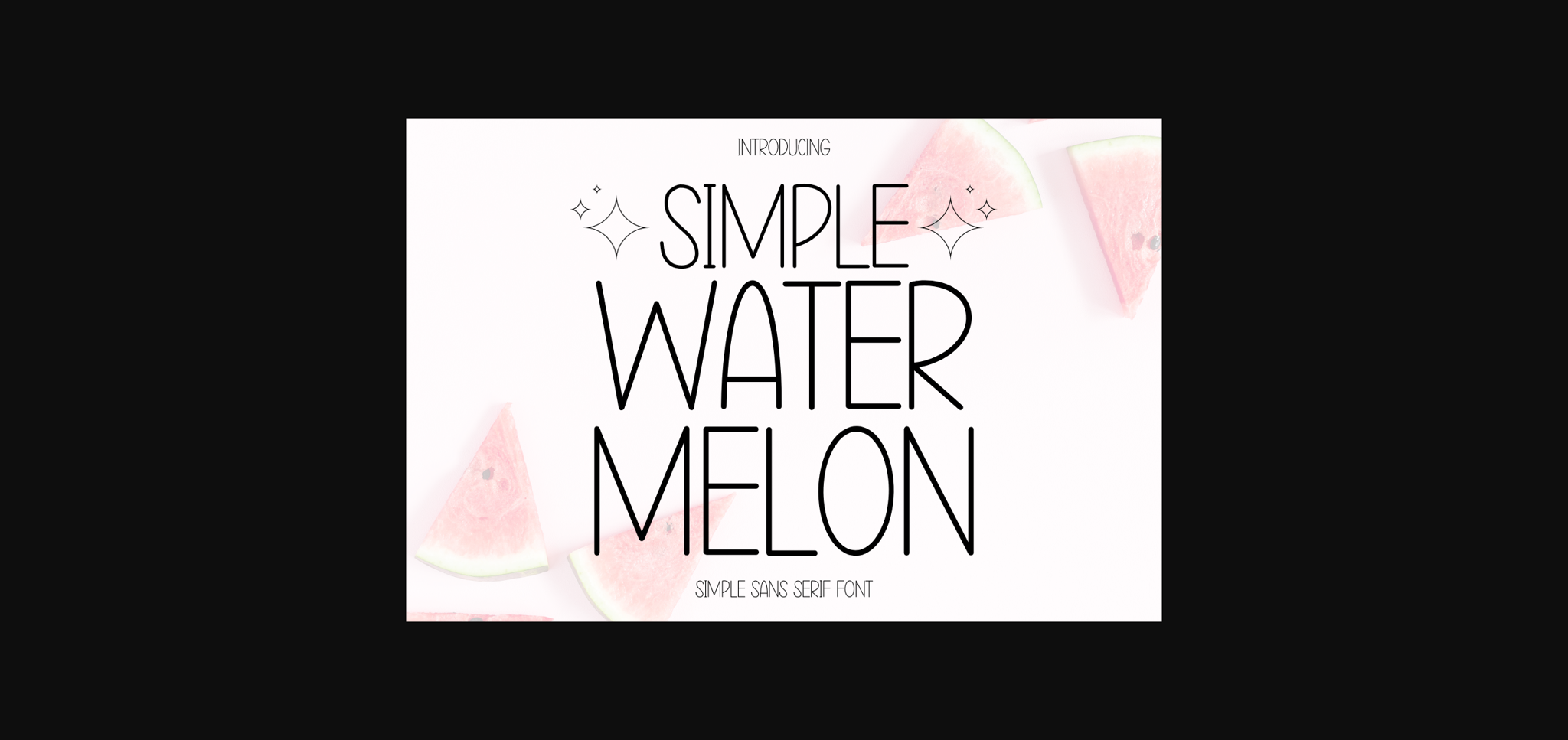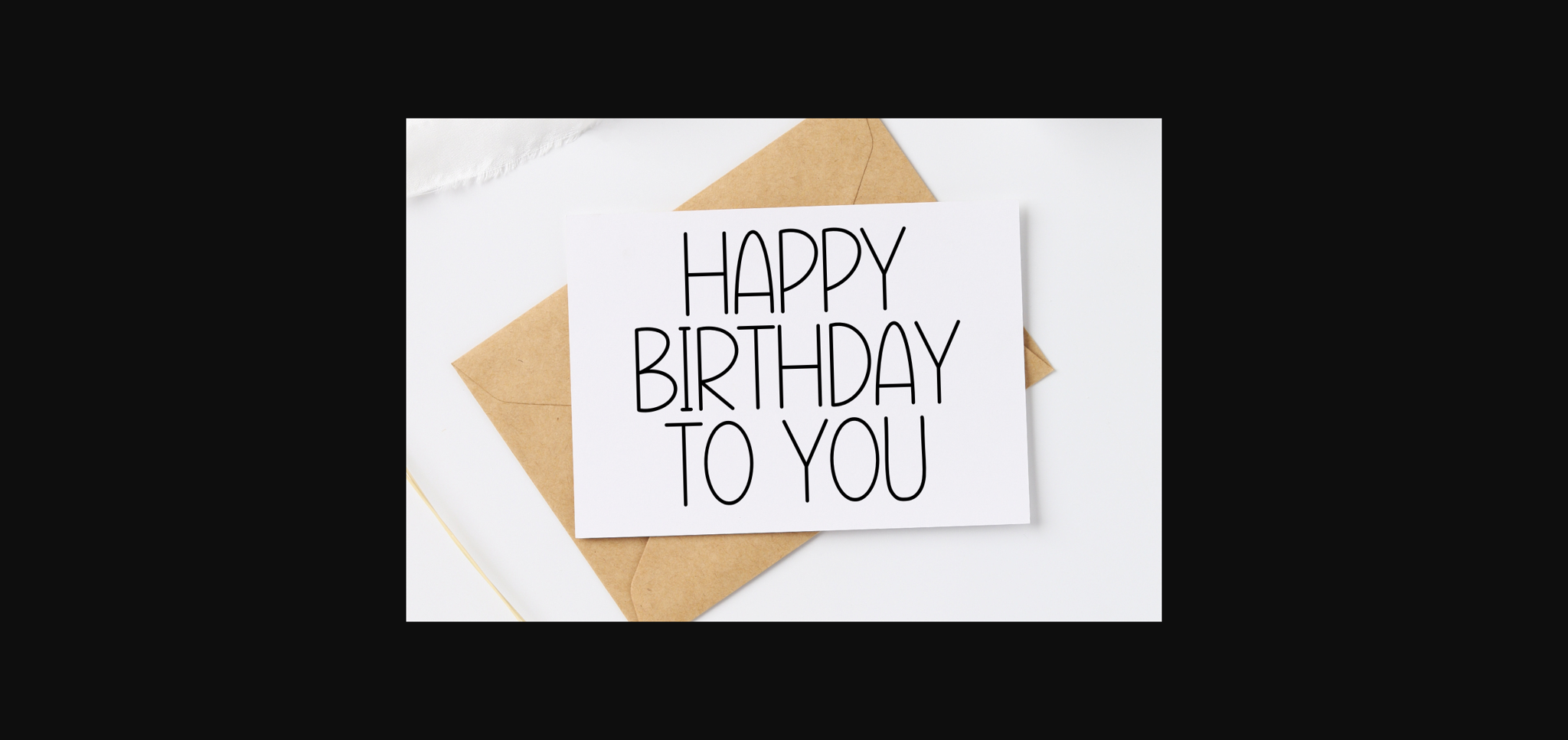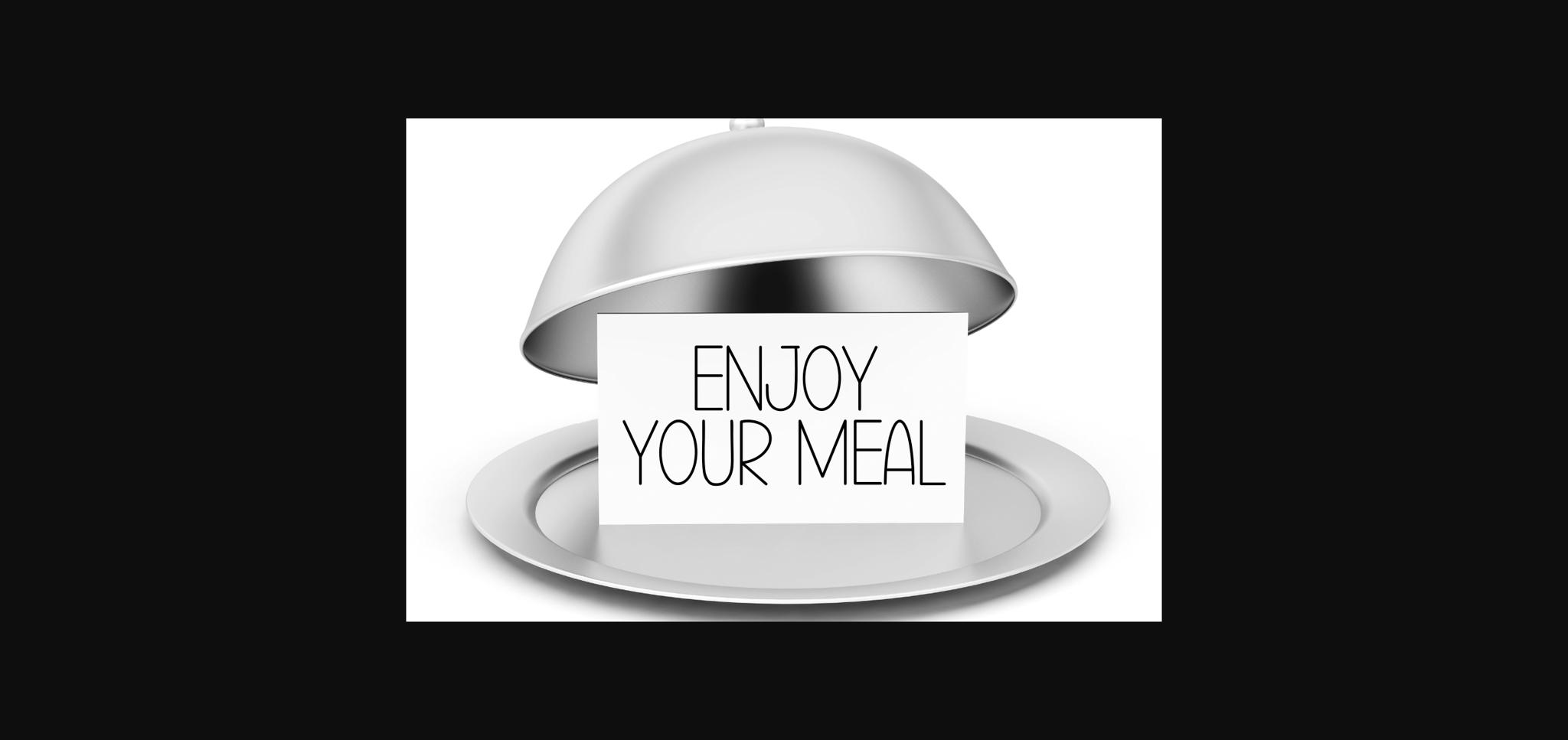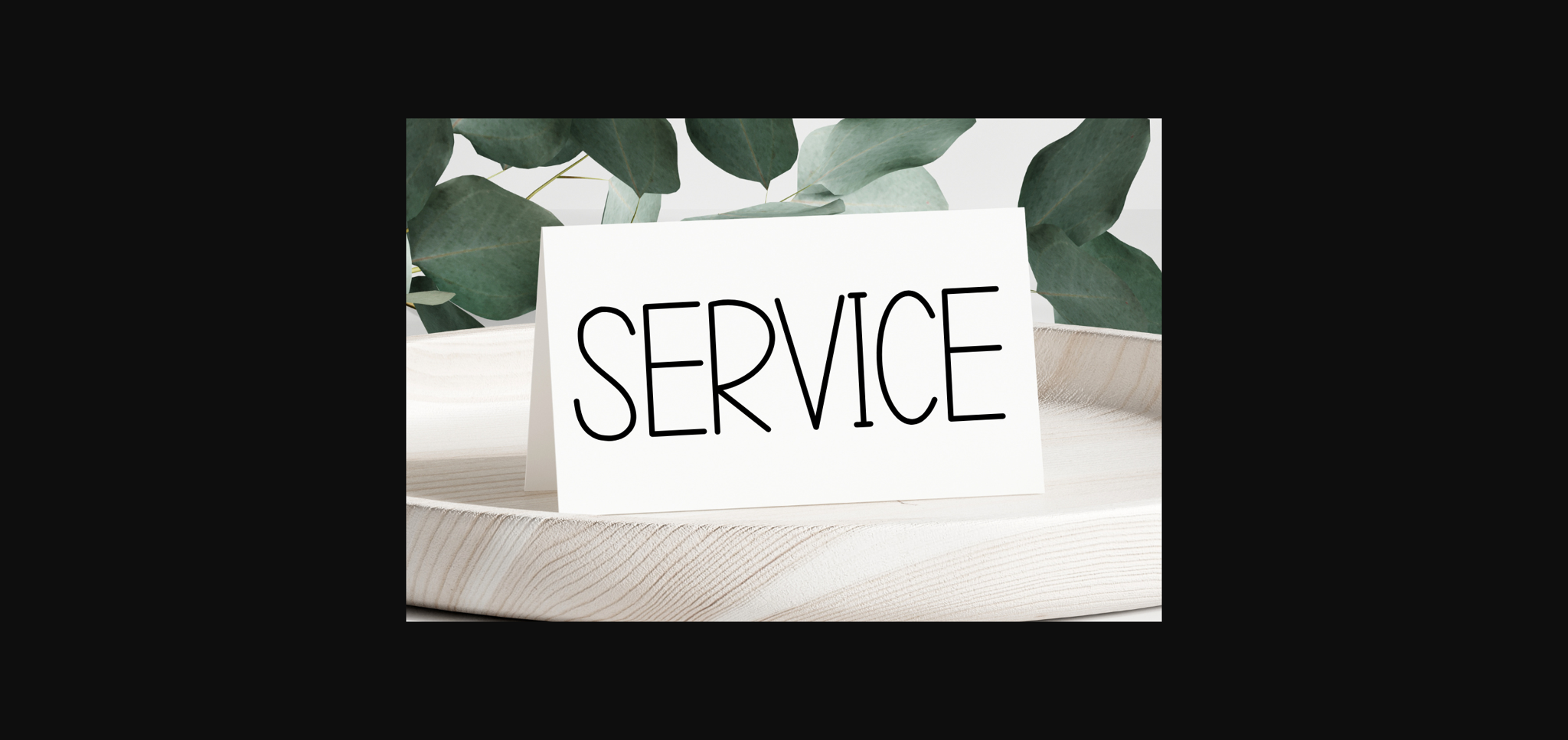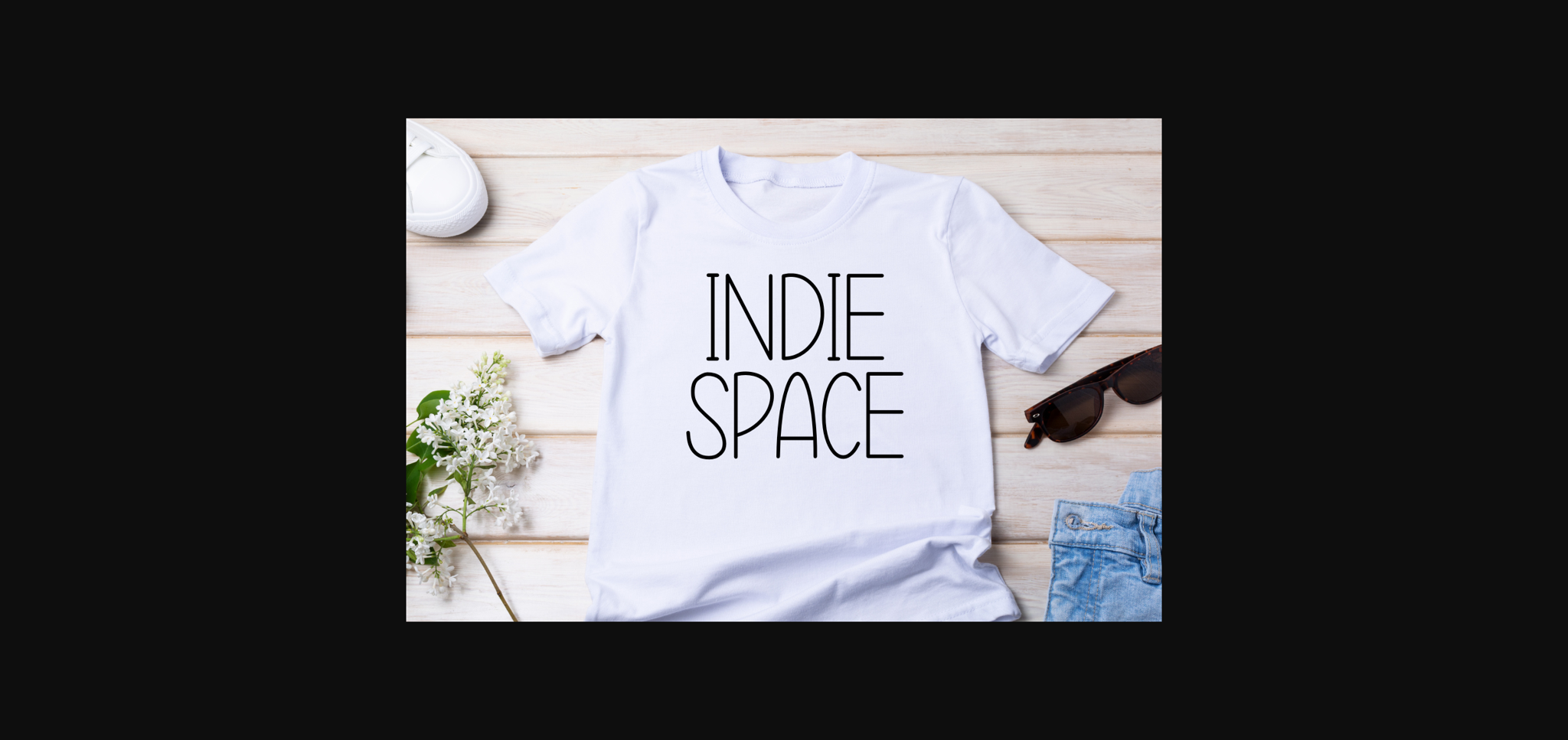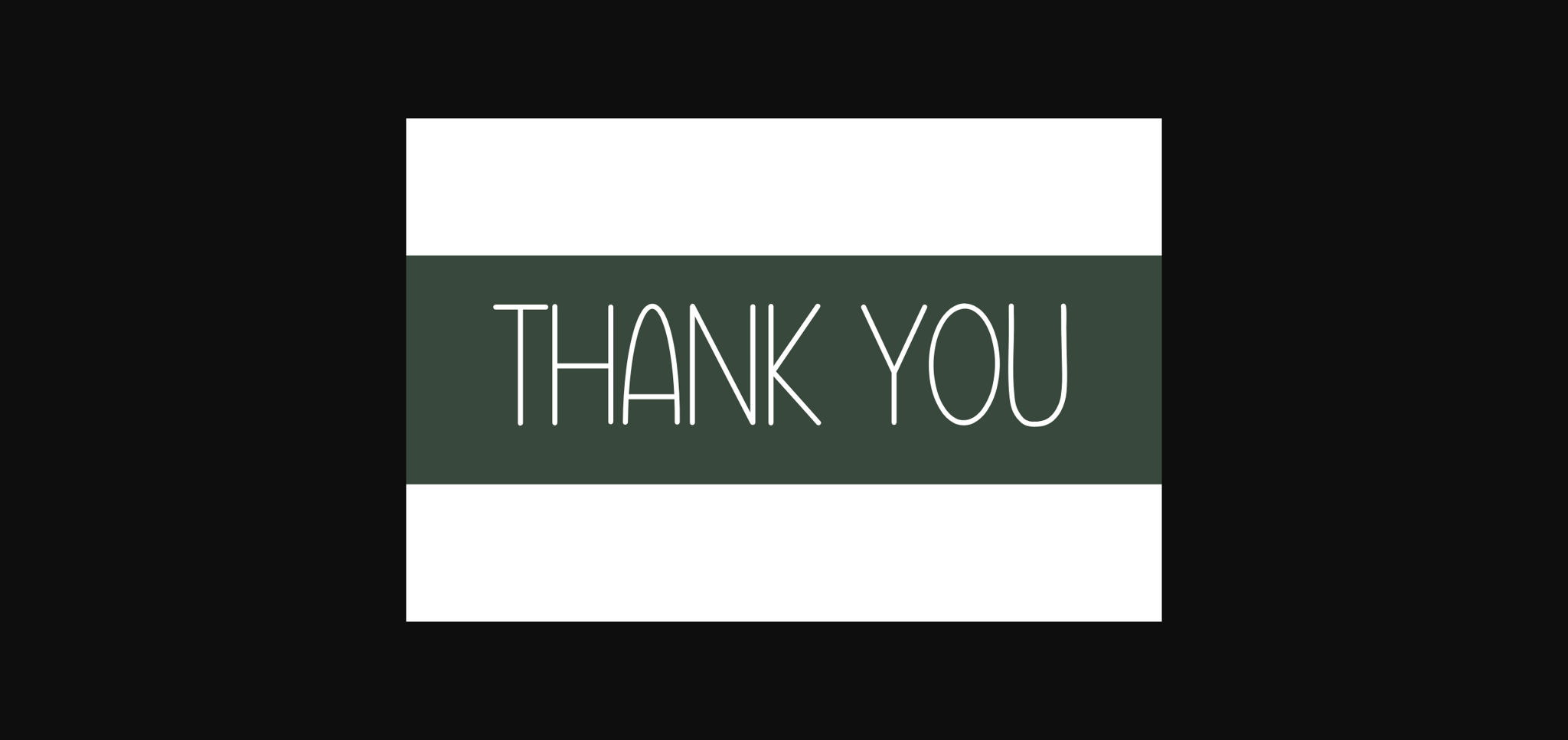
Simple Water Melon Font
About Simple Water Melon Font
Simple Water Melon is designed in a cute and friendly handwritten sans serif font style. This would be awesome for your fun projects or diary planner. Let’s try it for your perfect project like Easter, back to school, wedding, party decorations, invitations, Fall,Summer,Winter, Halloween, Christmas, posters, blogs, clothing, kids related designs, greeting cards, social media posts, or anything that requires a friendly touch. Add it now to your font library.